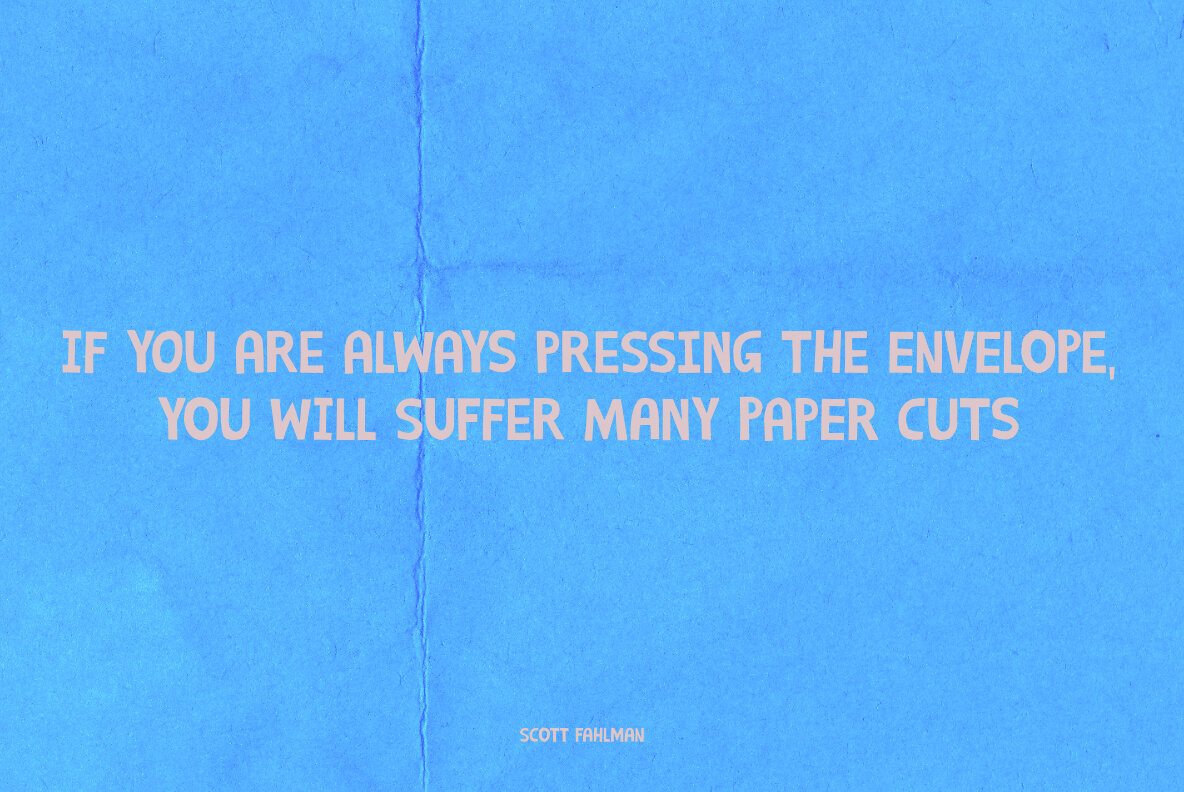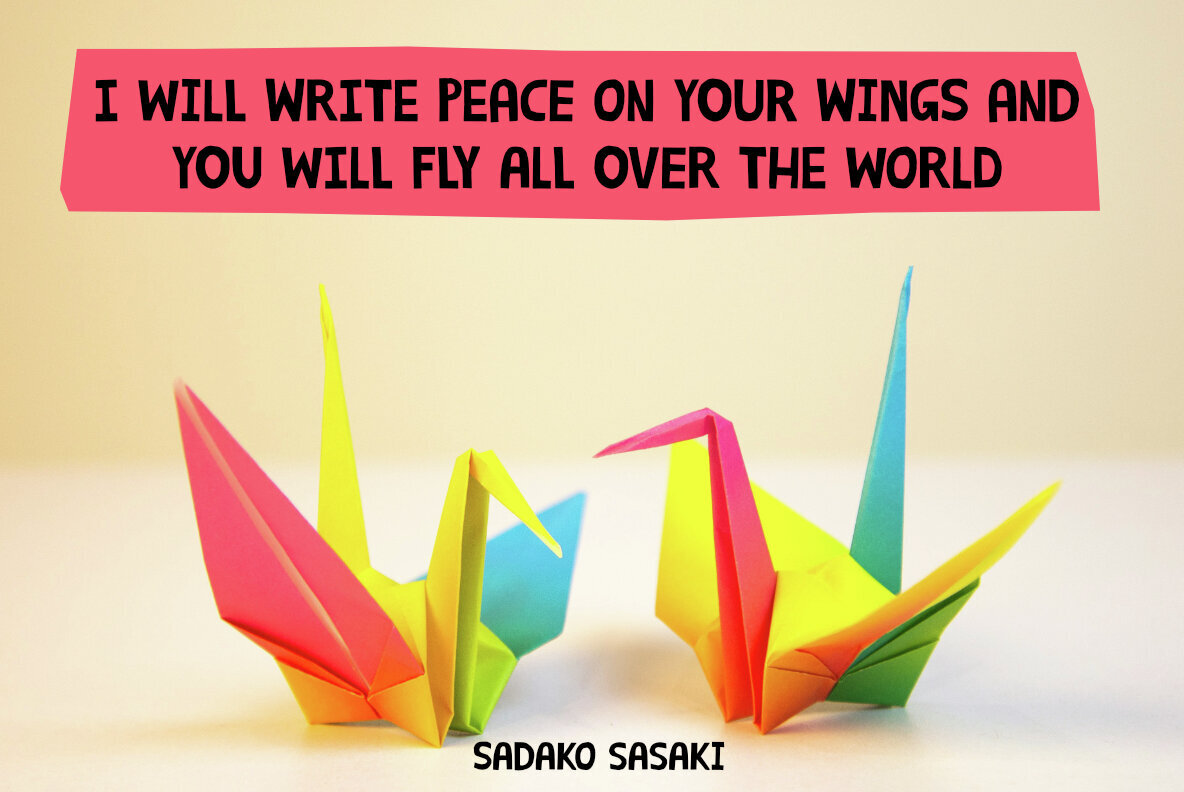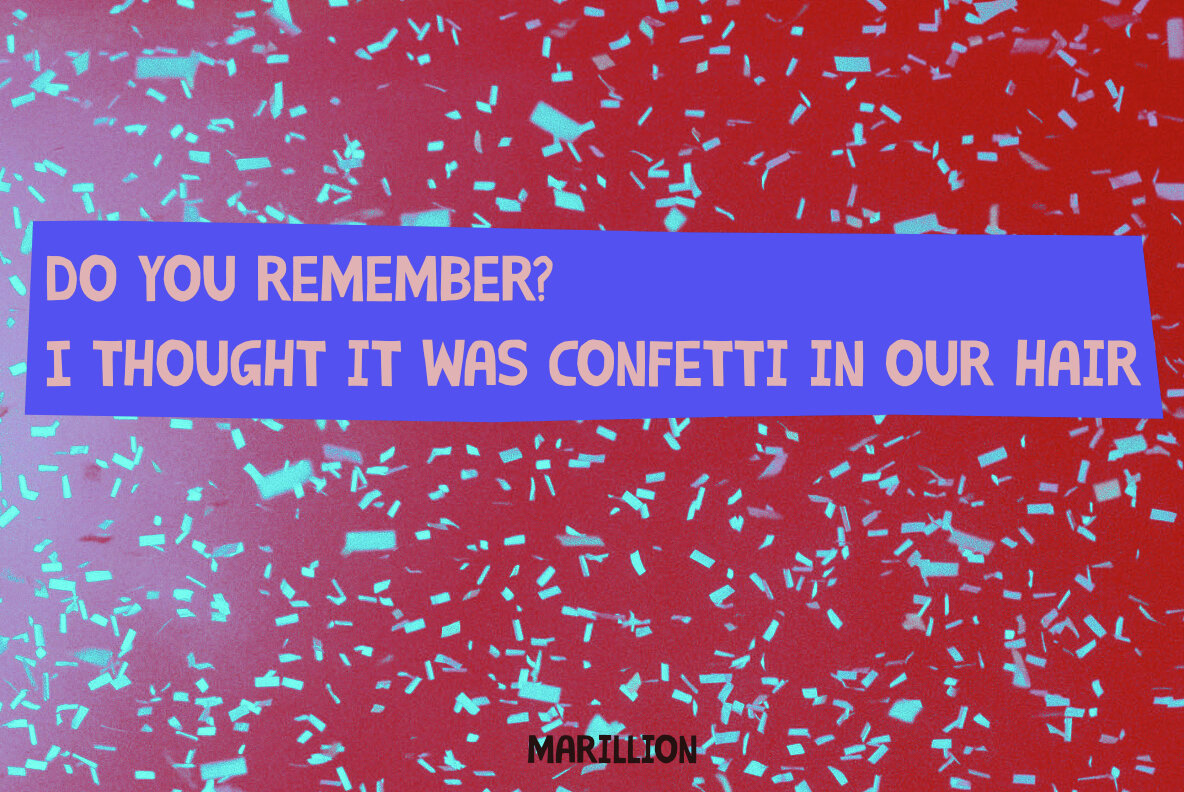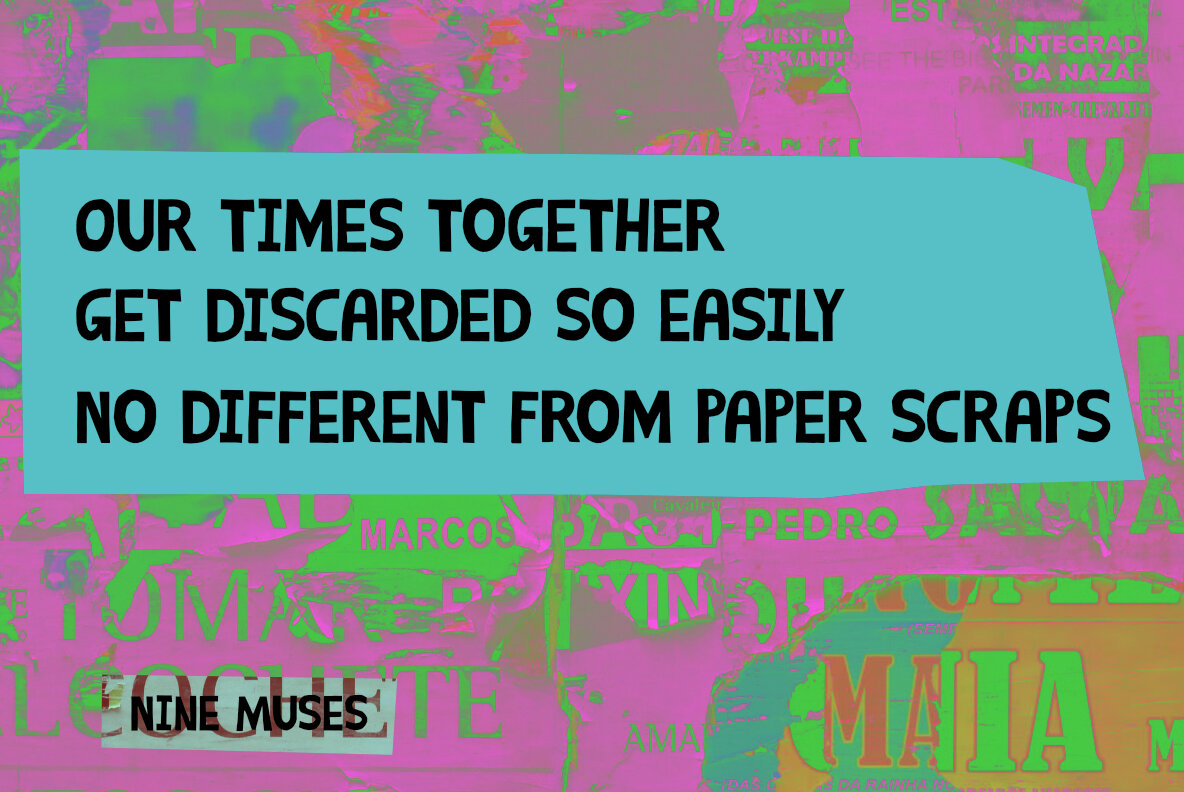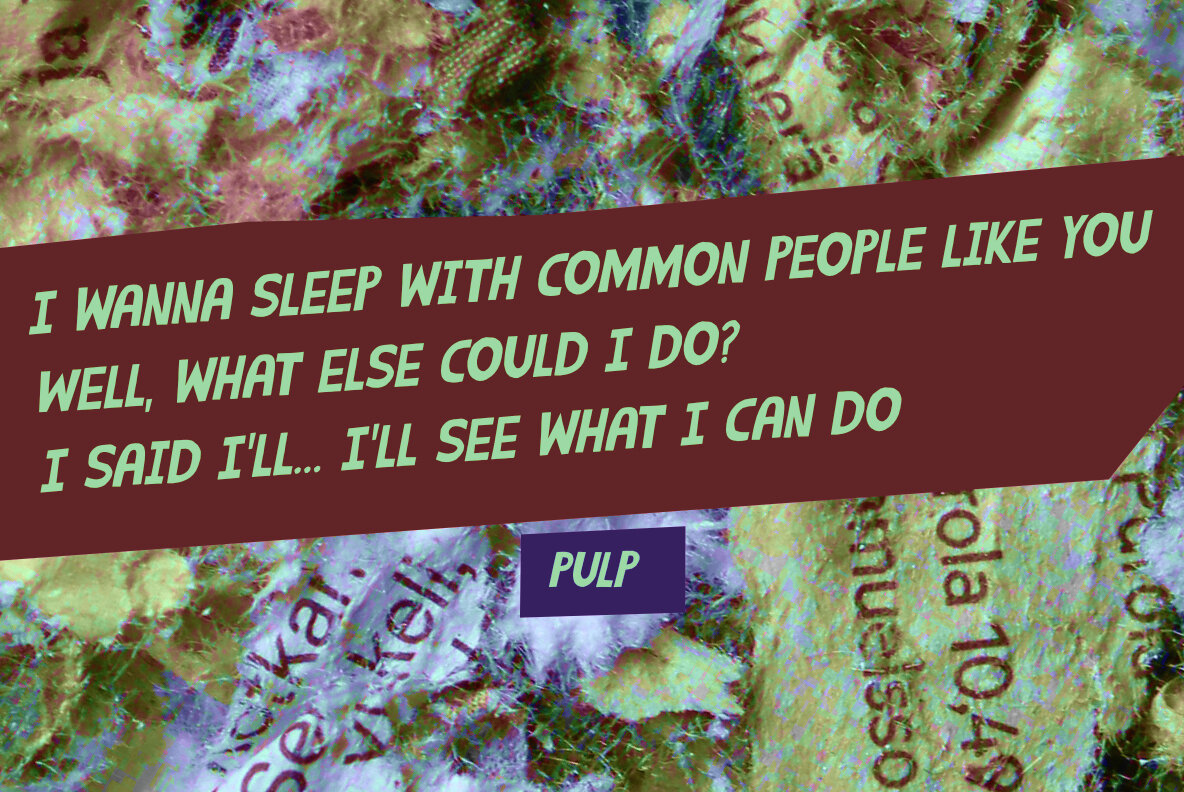
Snippers Font
Snippers Regular
Snippers Italic
Snippers is a Dutch word, meaning ‘scraps’. Usually it is used for paper scraps. It comes from the word ‘snippen’, which is an obsolete word meaning ‘to cut’. I like making cut-out fonts, but since it takes so much time and it leaves me with a lot of snippers, I don’t do it too often. Snippers is (you’ve guessed it) a cut-out font. It is a little wobbly and worn, but that is what a cut-out fonts should look like imho.